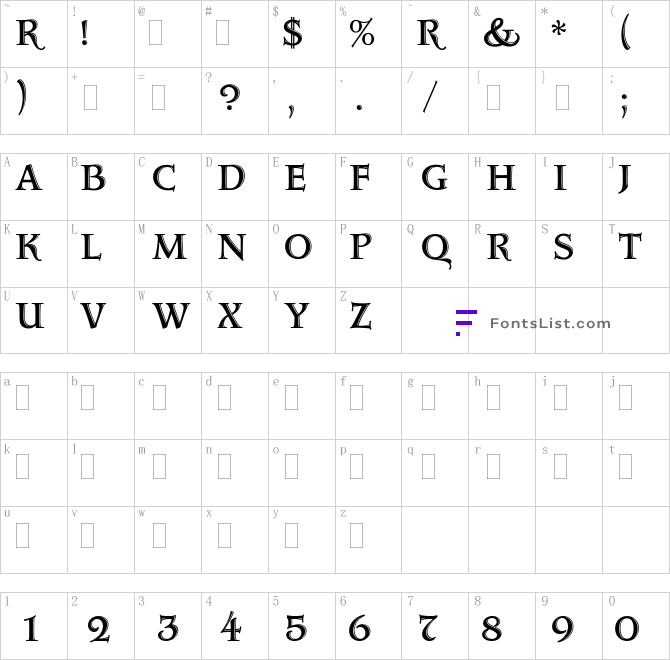
AquitaineInitialsPlain.ttf is a very beautiful artistic font, AquitaineInitialsPlain.ttf is widely used in the design and printing of various books and pictures,AquitaineInitialsPlain.ttf has a strong visual impact,AquitaineInitialsPlain.ttf is a commonly used font in newspapers, magazines and books, and is used in posters, e-commerce Poster design, store design, logo design, font design and other fields.AquitaineInitialsPlain.